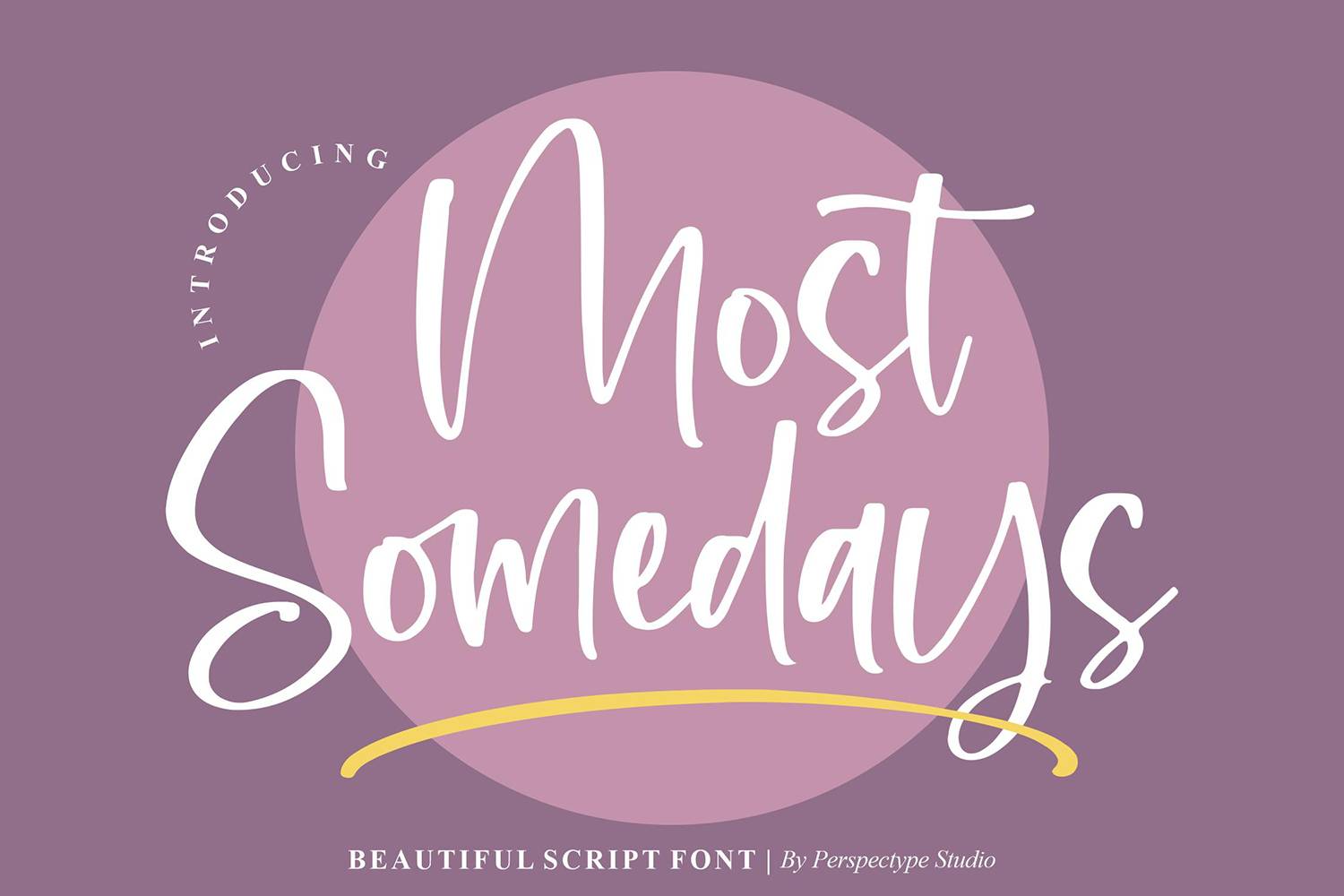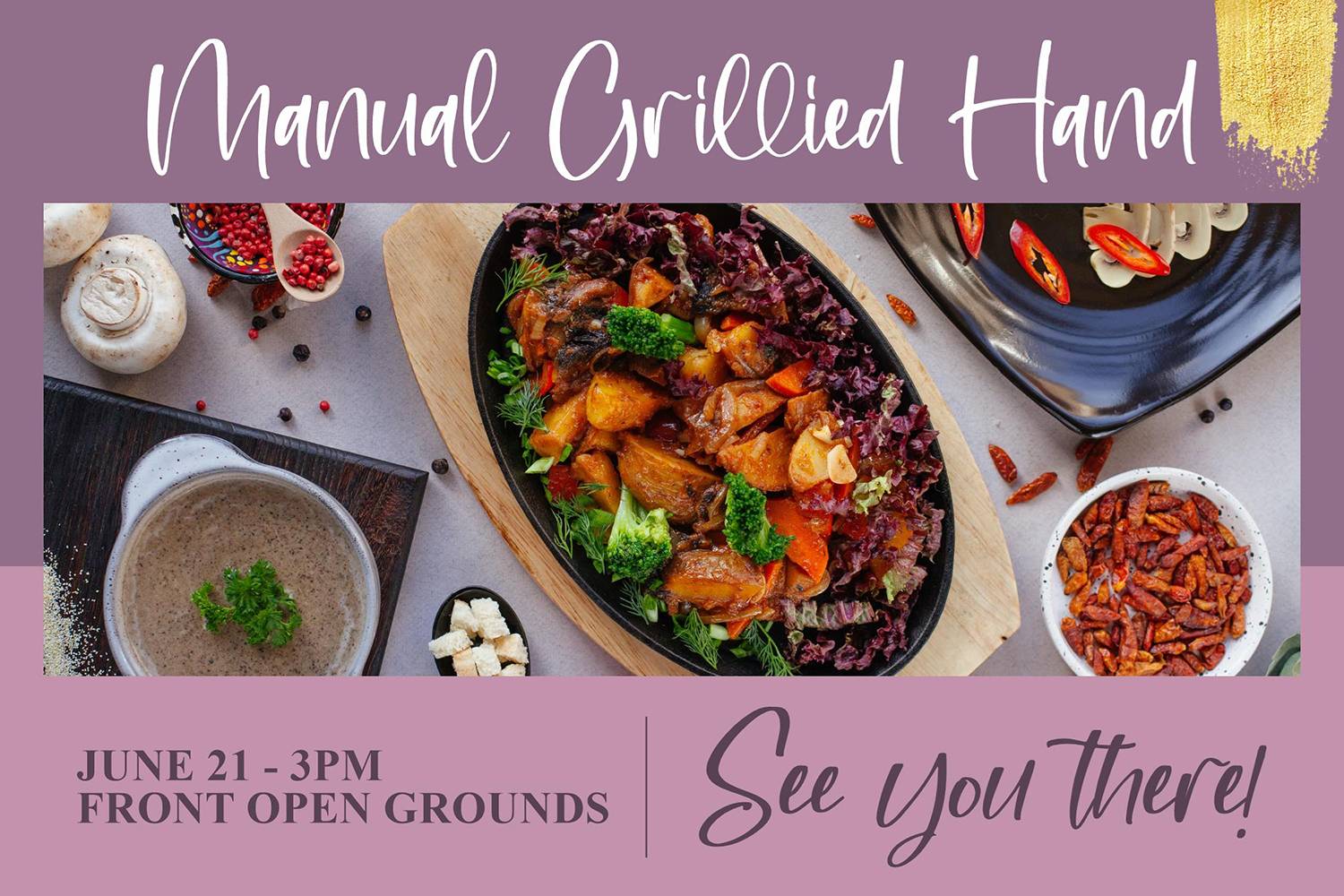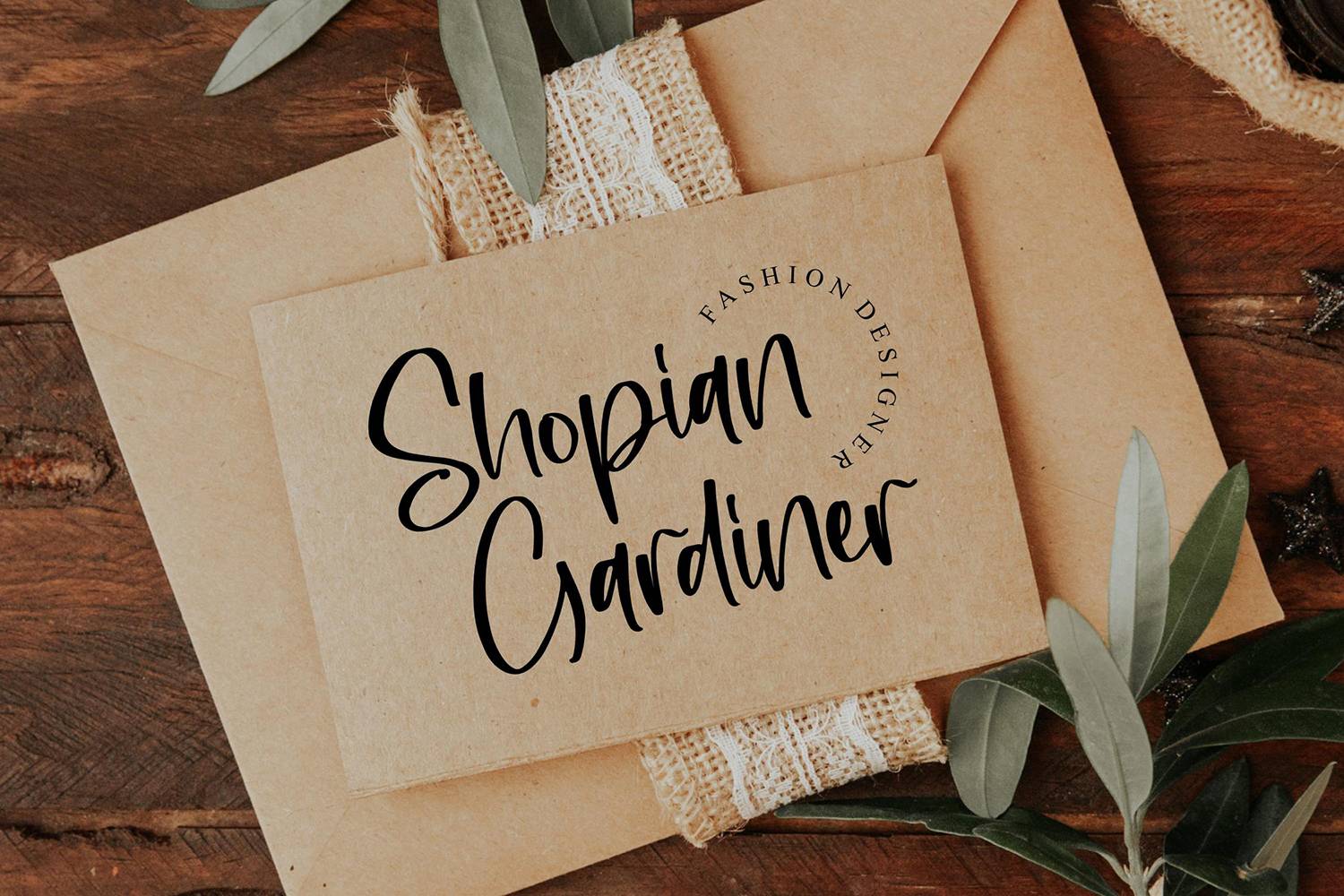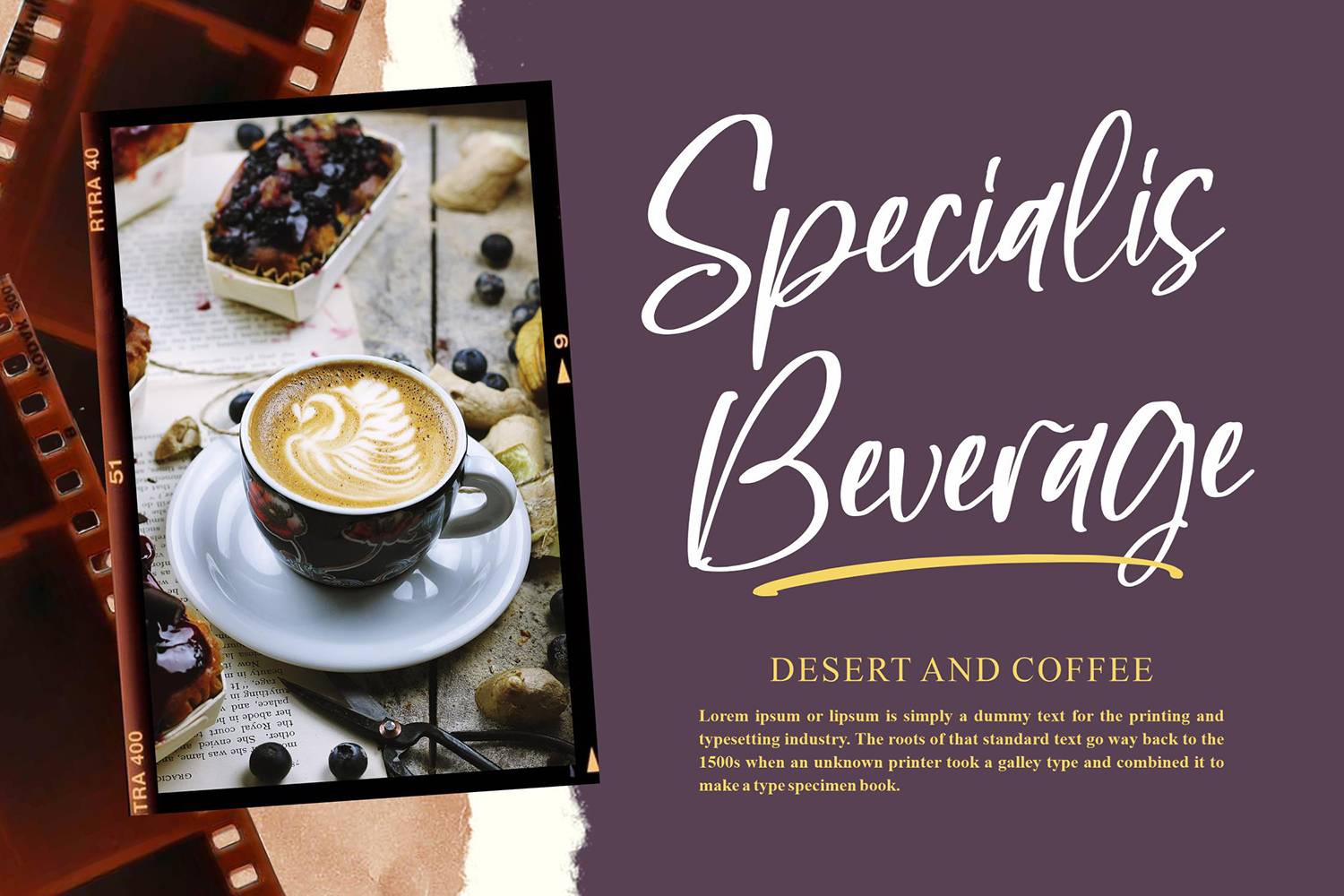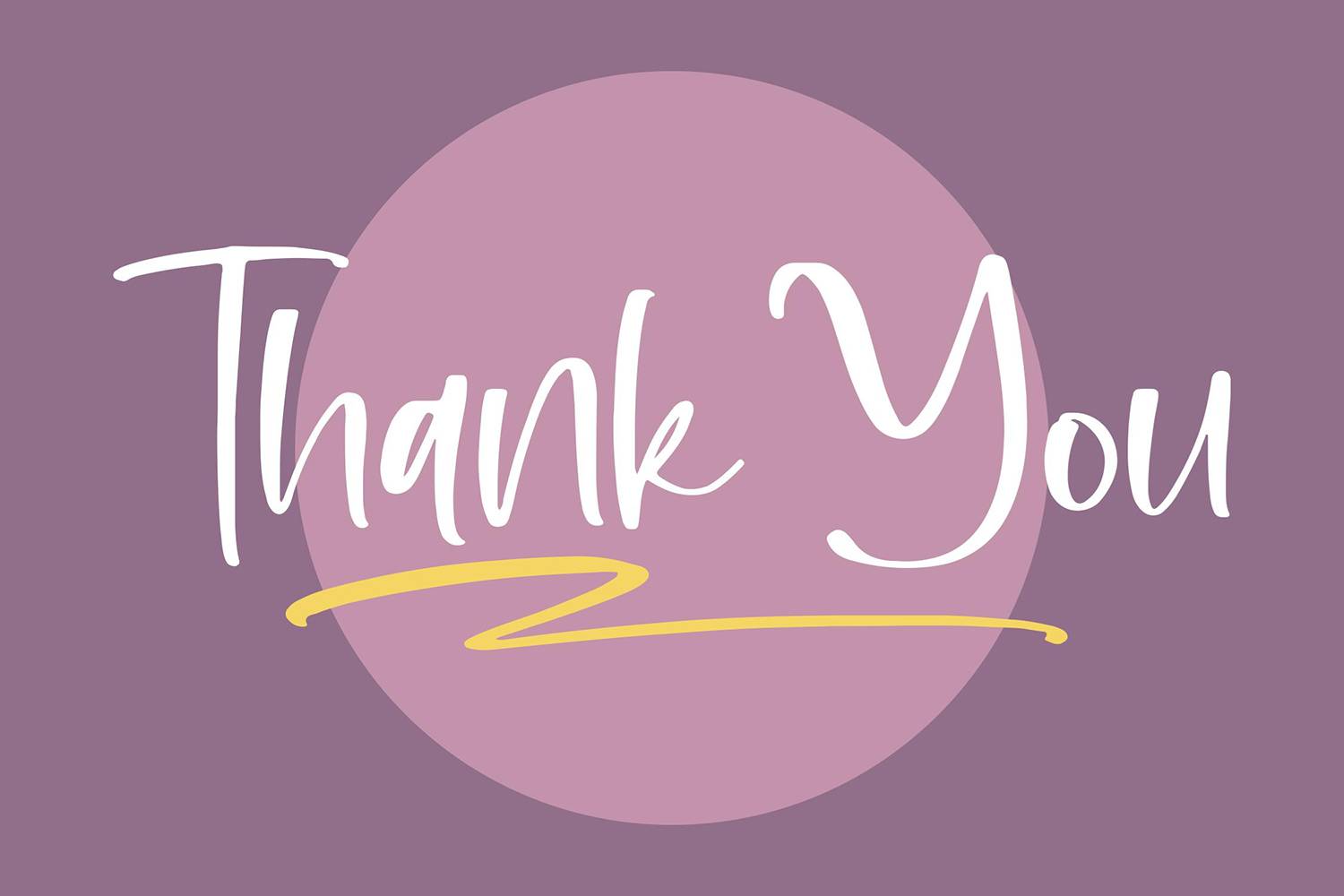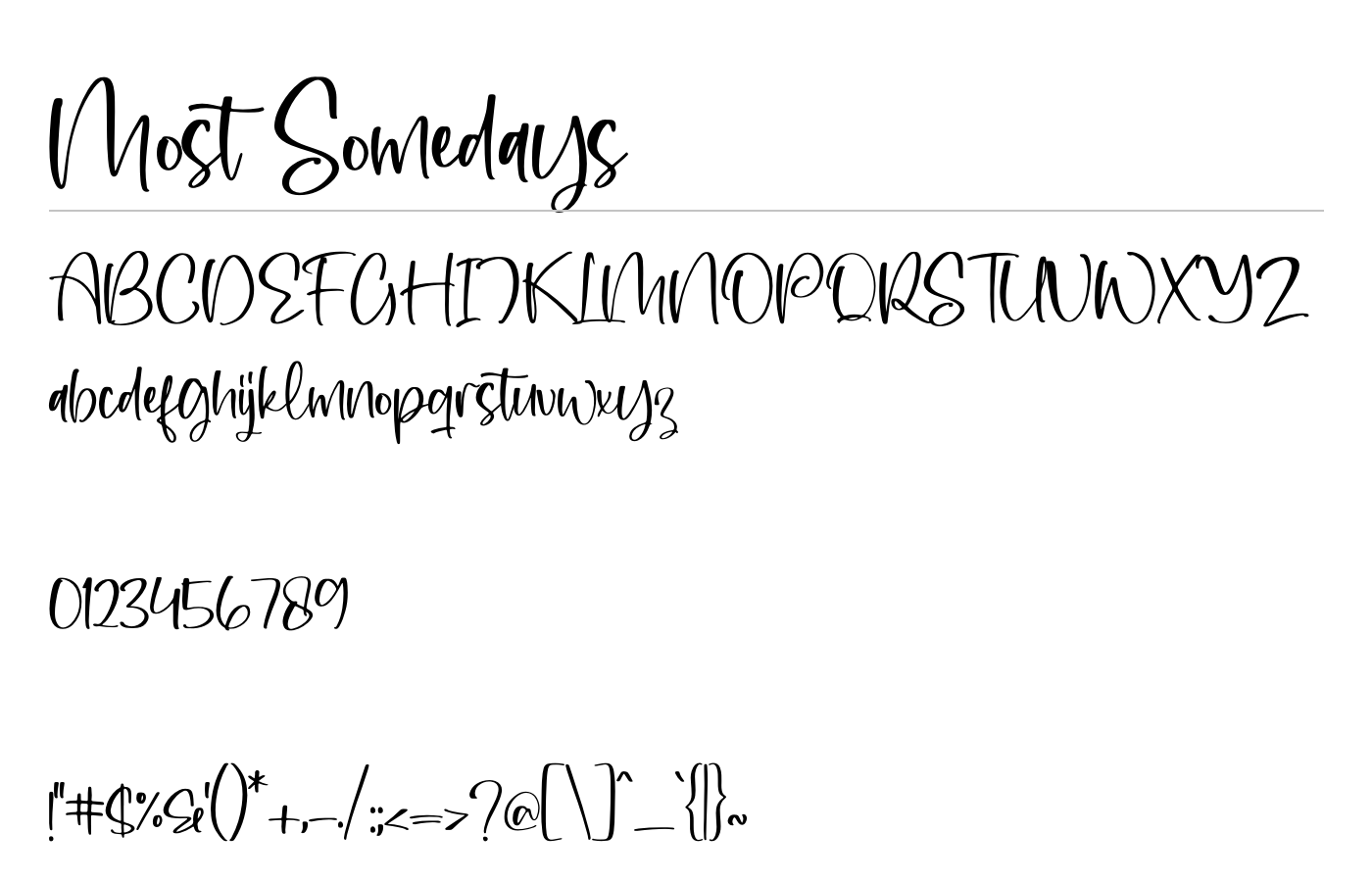
Most Somedays is a lively, handwritten script font with a casual and friendly vibe, featuring tall, slender letterforms and playful, irregular strokes that give it a personal, hand-crafted feel. Its flowing uppercase and lowercase characters, combined with neat, slightly whimsical details, make it ideal for creative projects, invitations, branding, and social media where a warm, approachable touch is desired. This font works best in headlines, logos, and decorative text where its expressive personality can truly shine.
Most Somedays Font
About Most Somedays Font
| Font family | Most Somedays Font |